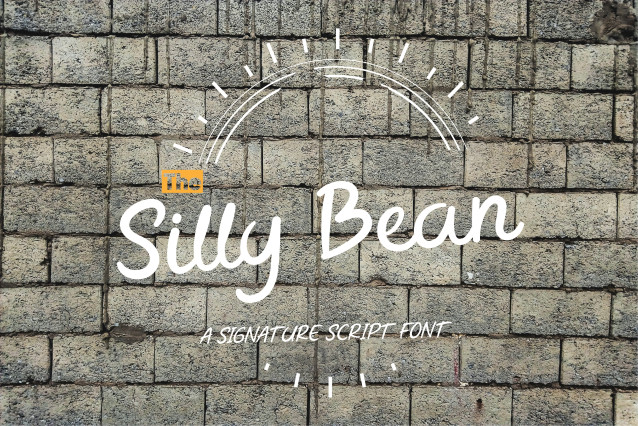
Silly Bean Font
Silly Bean Font is a handwritten typeface with a playful, lighthearted, and expressive character. Its soft, natural-curved letterforms create a friendly and playful feel. It’s suitable for designs that want to convey a cheerful feel, such as birthday invitations, children’s products, motivational quotes, snack packaging, or branding that wants to appear more fun and friendly.
This font combines a casual touch with a modern aesthetic, ensuring readability while still standing out with its uniqueness. Silly Bean is ideal for designers who want to convey a warm, imaginative, and playful atmosphere in their work.